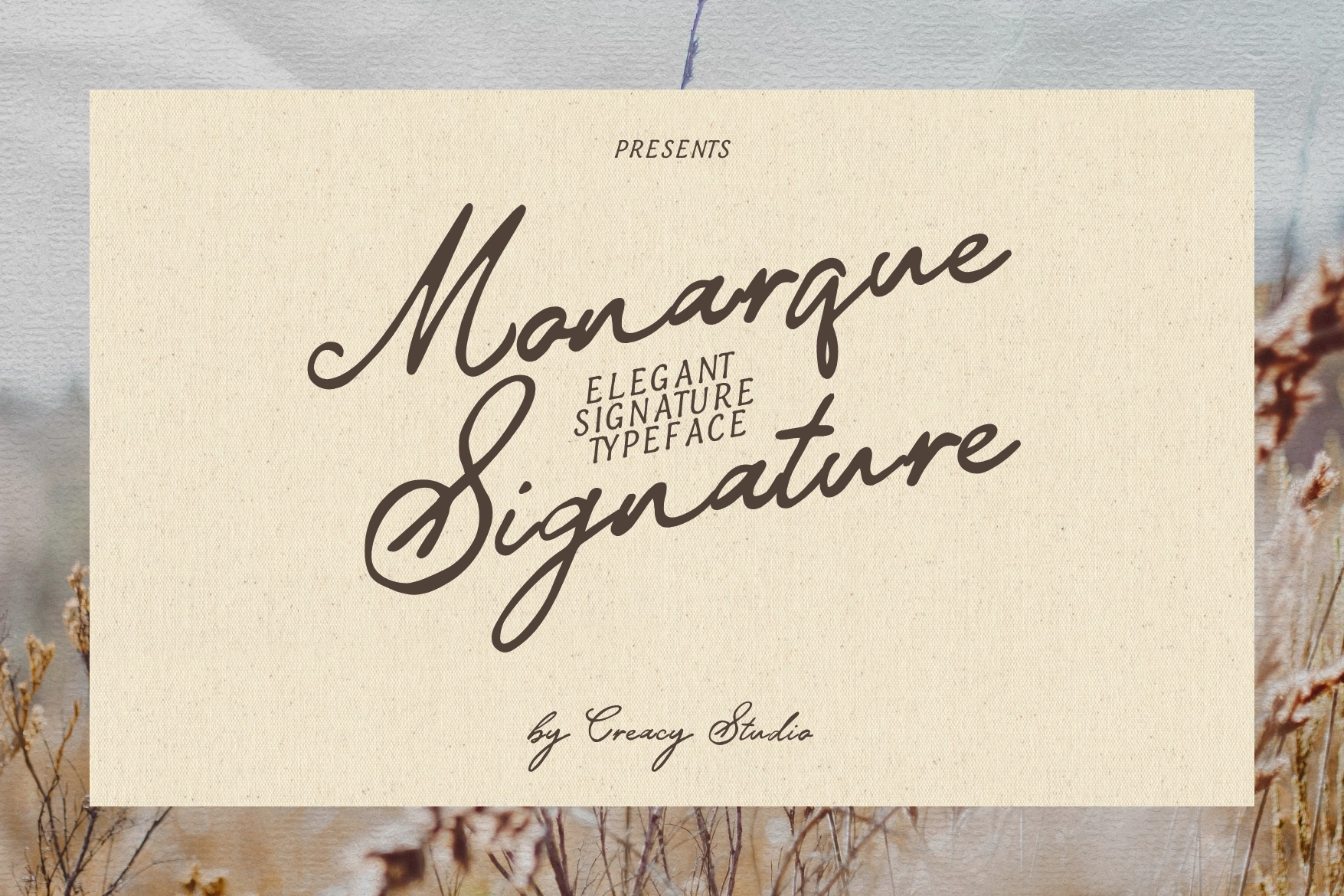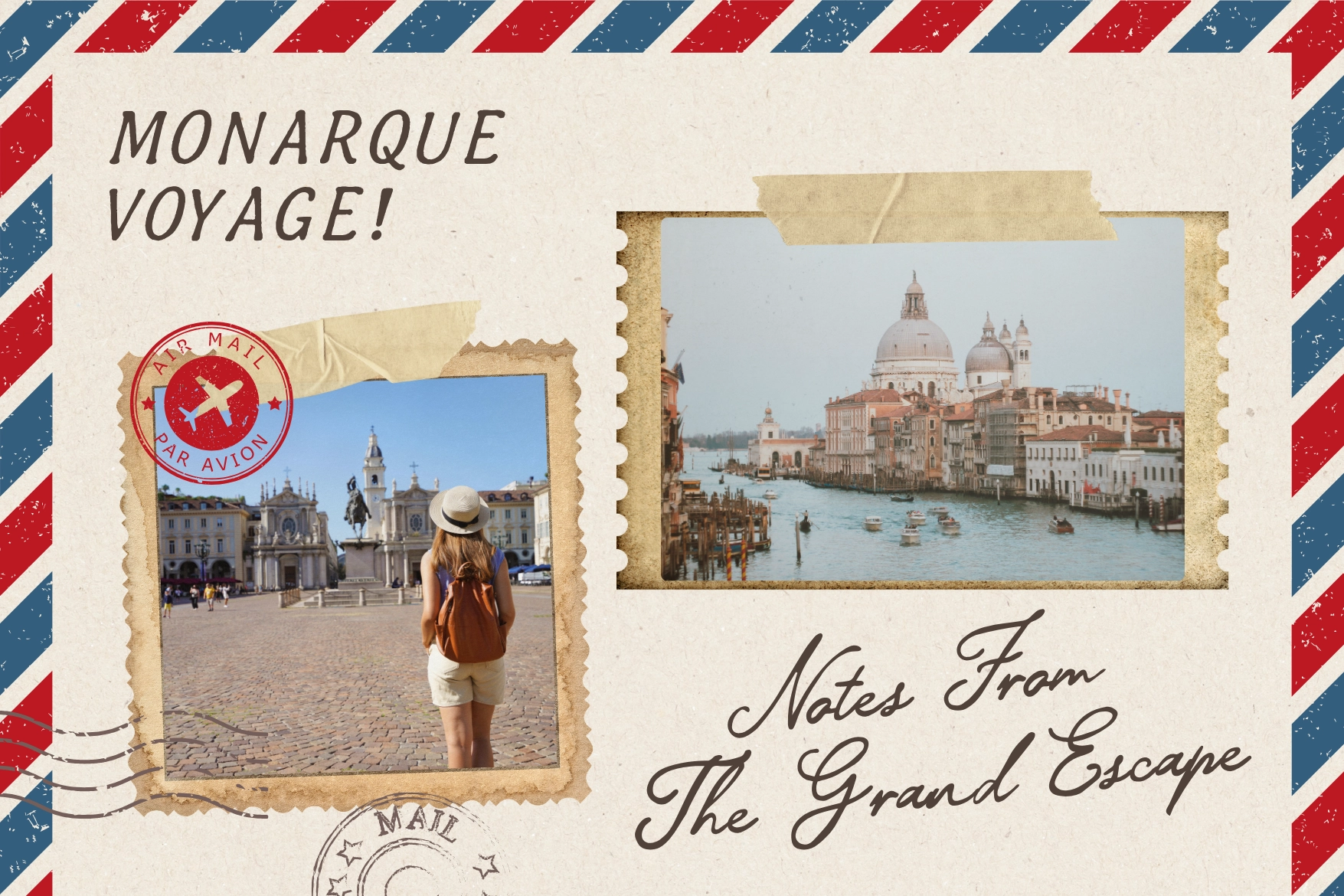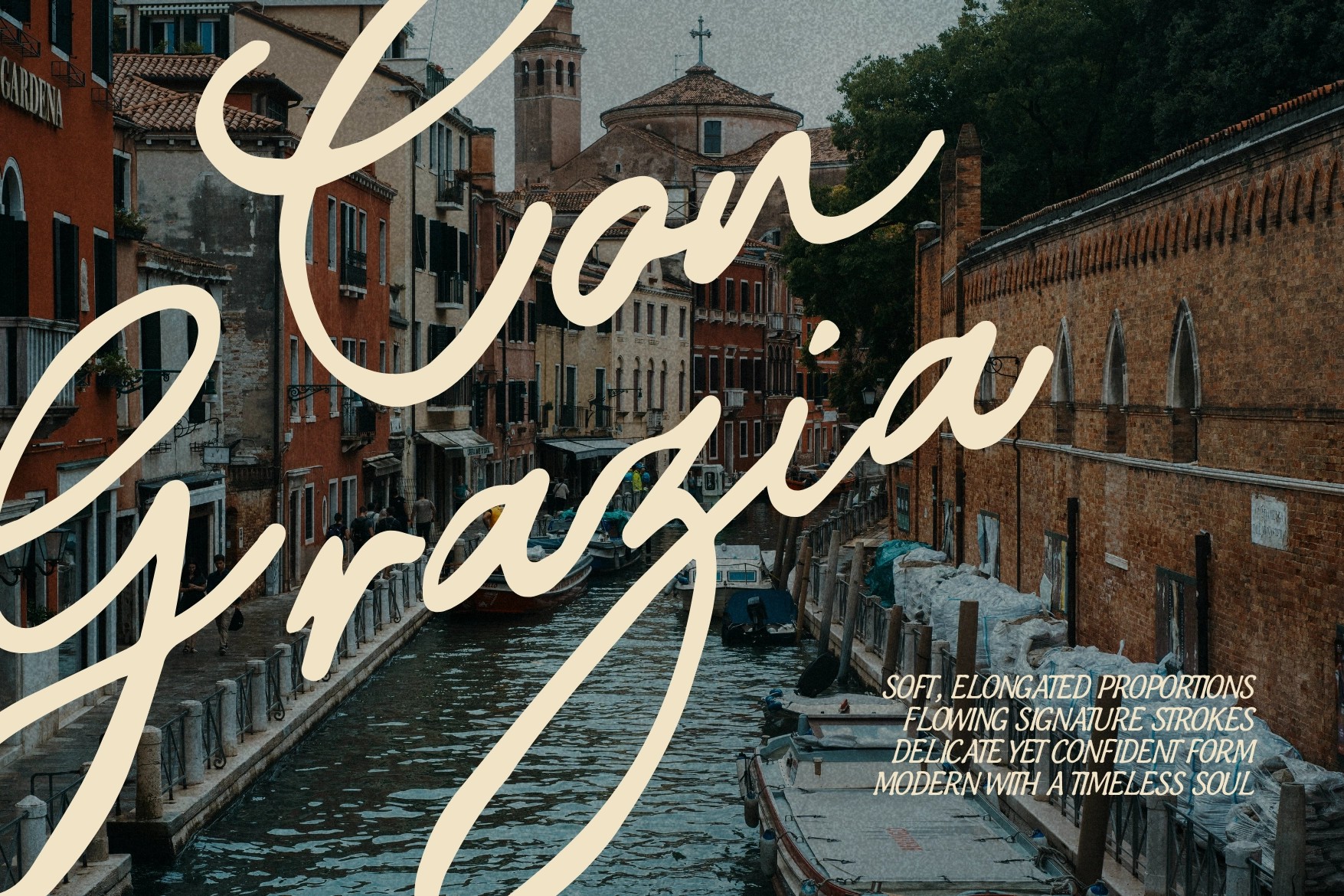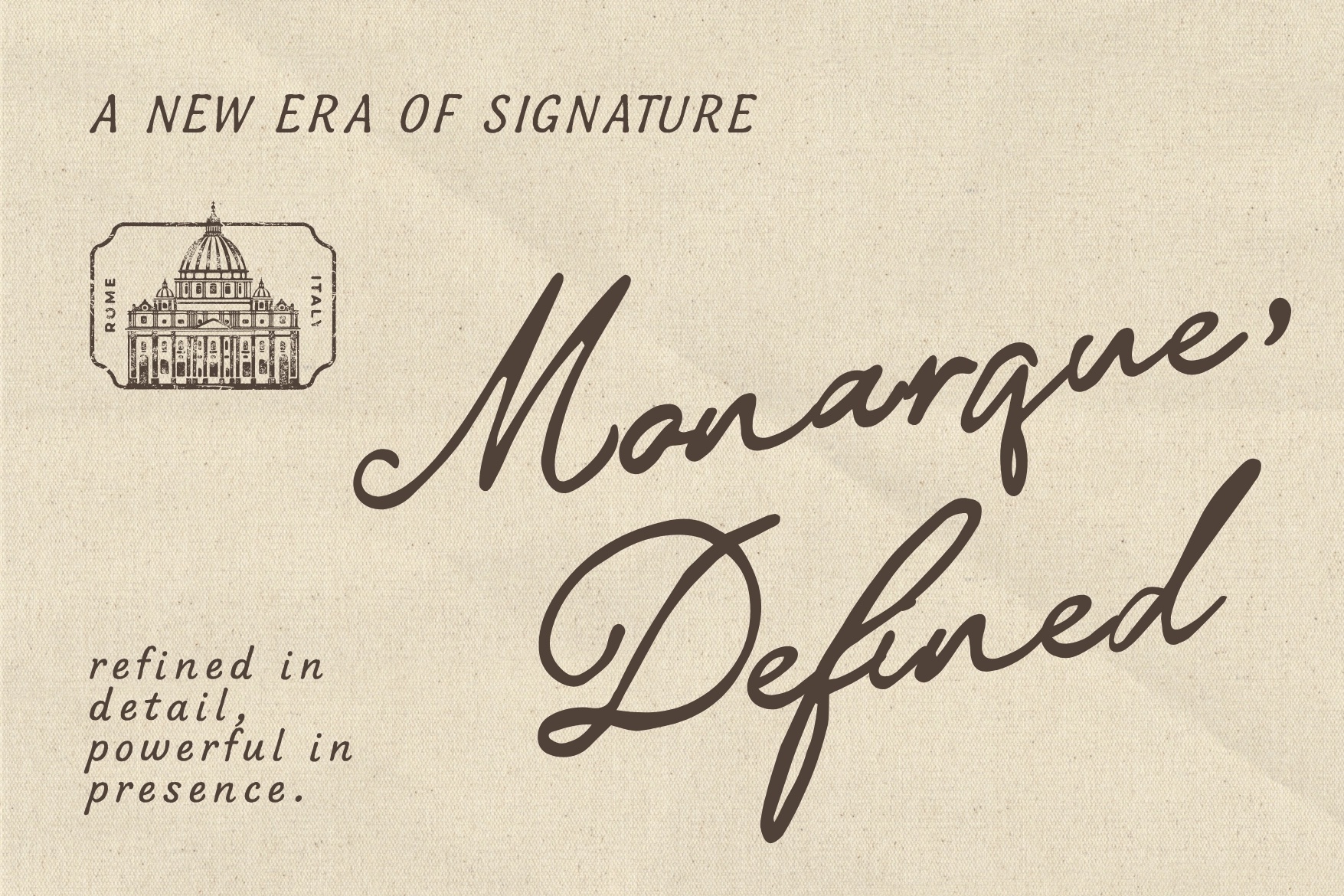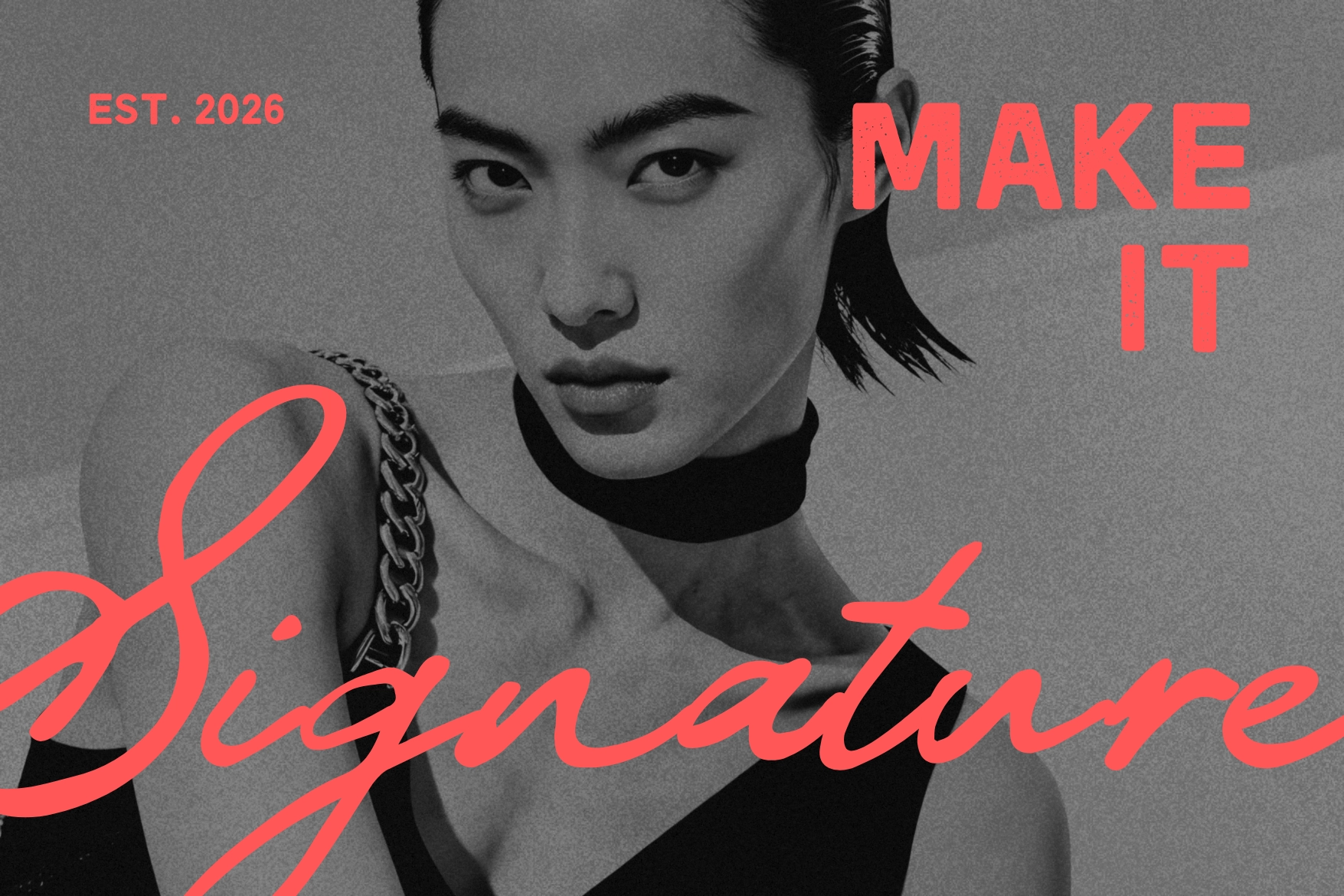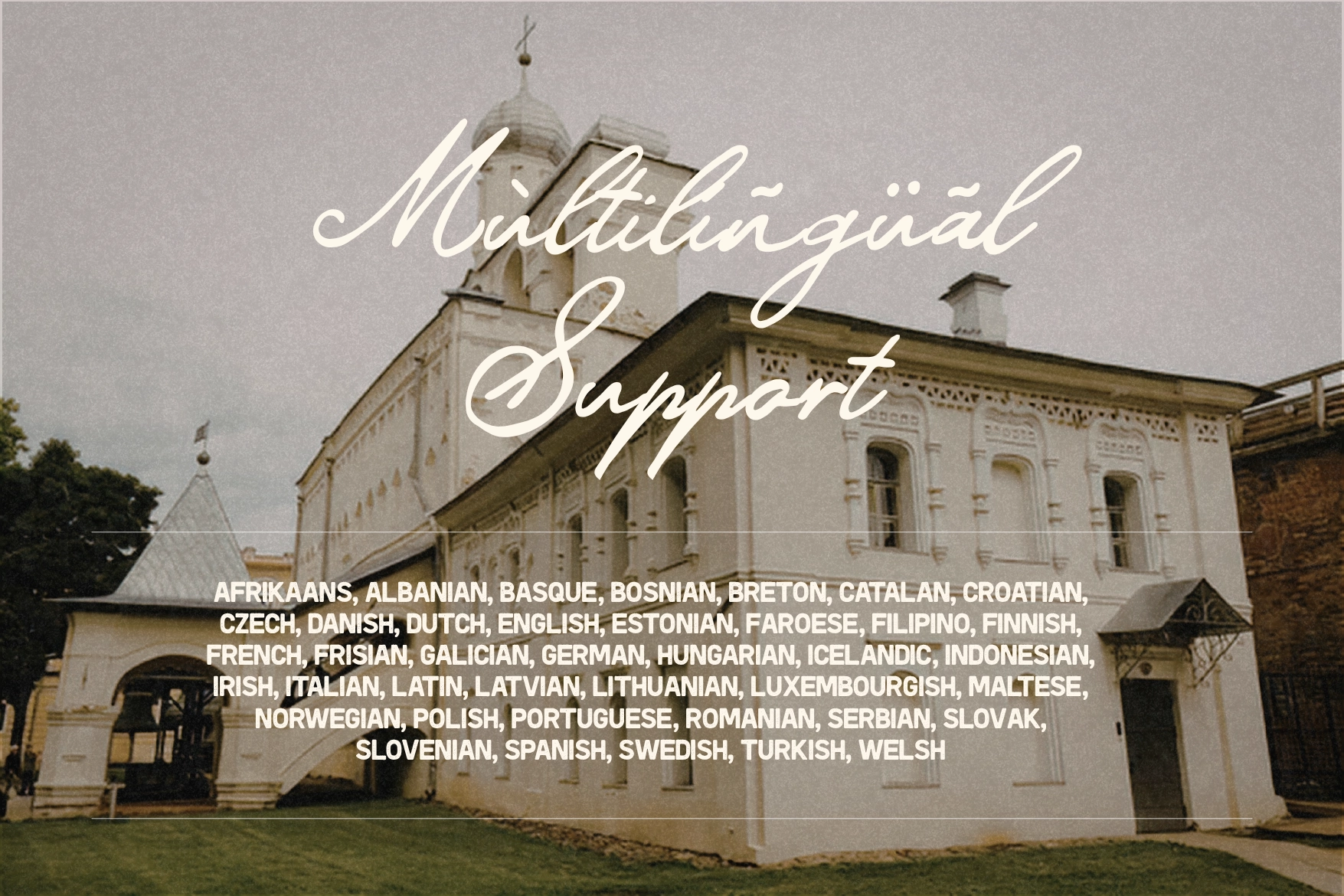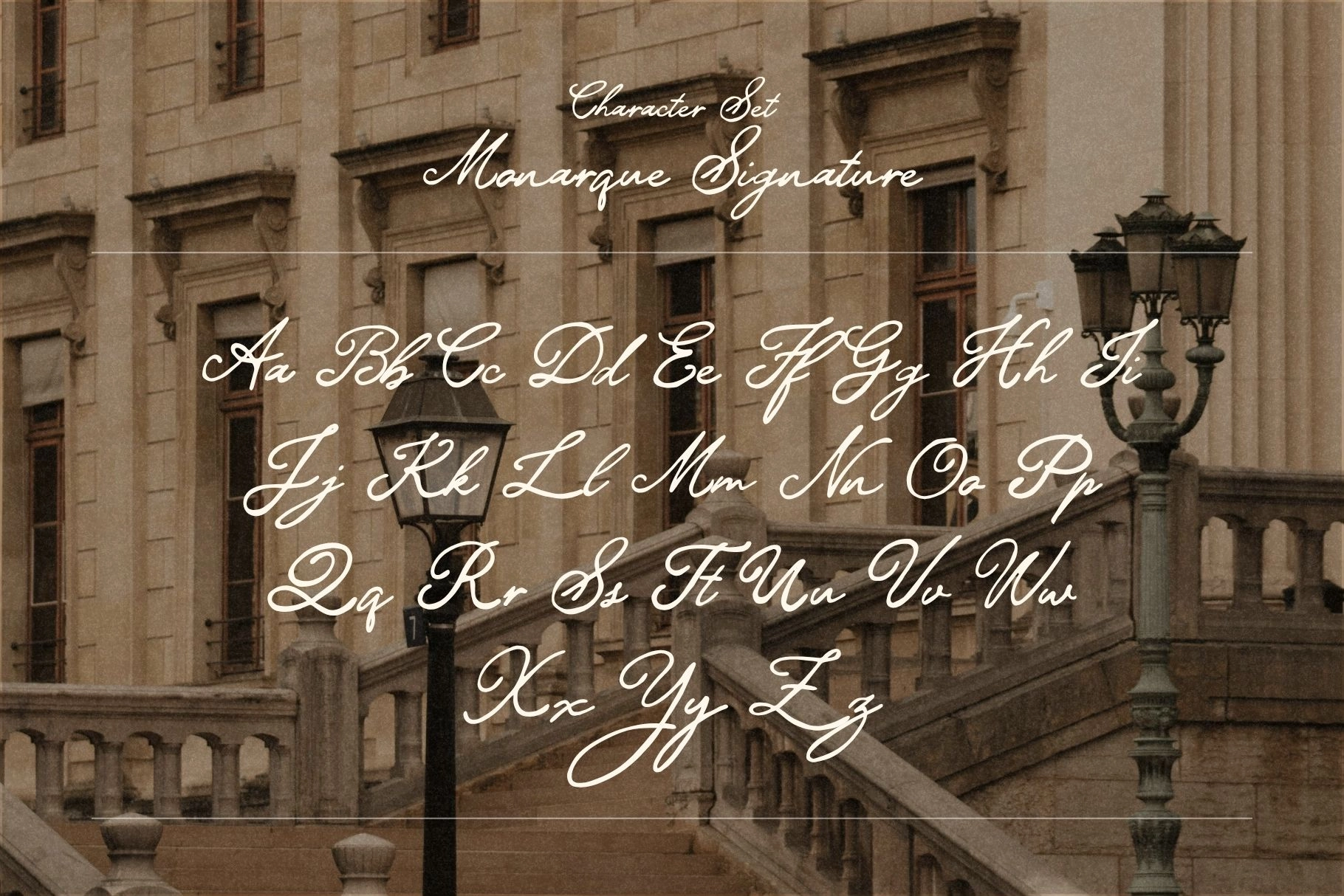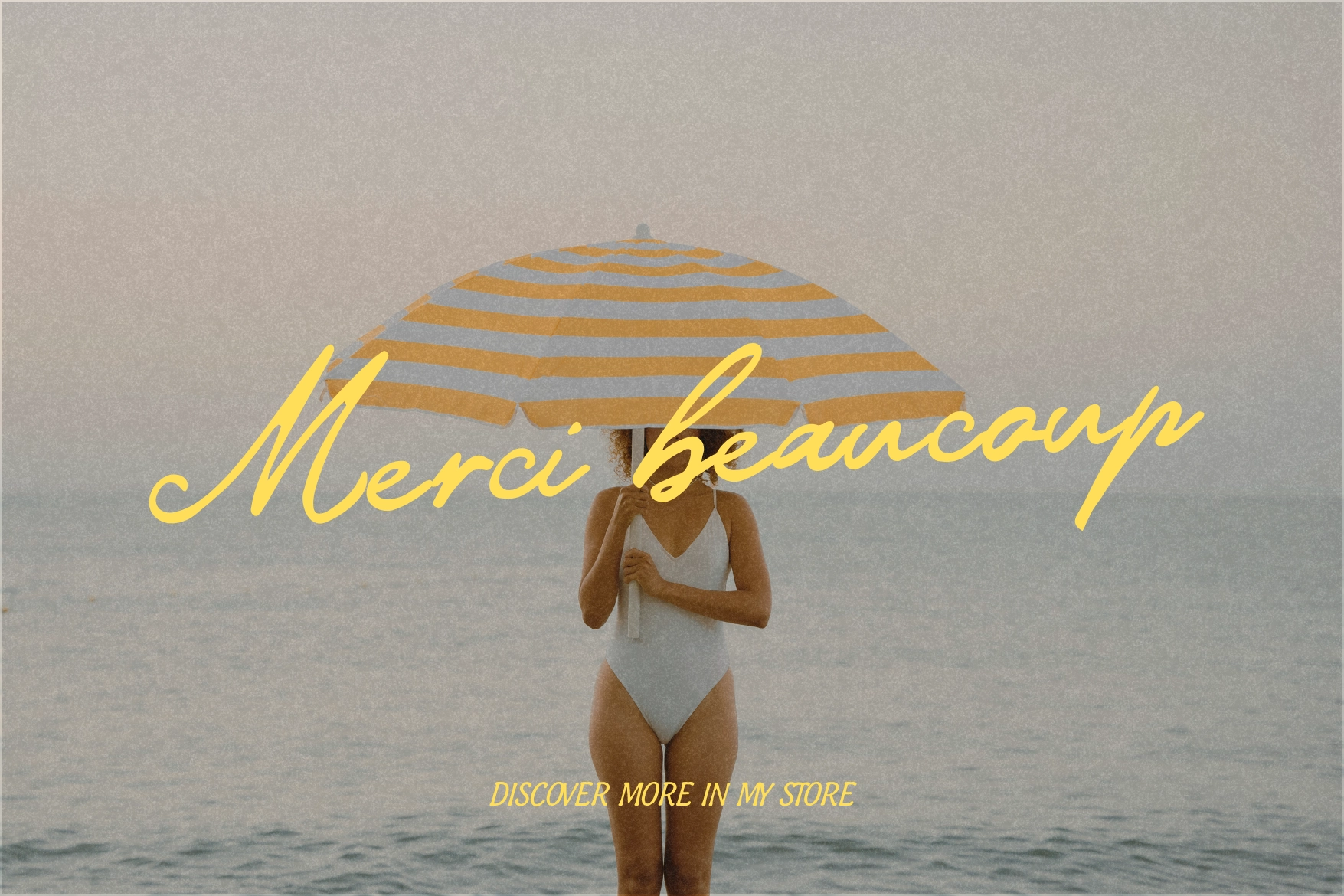
Monarque Signature - Elegant Script Font
Monarque Signature - Elegant Script Font is a refined handwritten typeface inspired by classic European calligraphy and modern luxury branding. With flowing strokes, elongated proportions, and soft curves, it creates a graceful, natural rhythm that feels both personal and polished. Its signature-style character brings elegance and confidence to any design, making it ideal for high-end visual identities.
Balancing delicate forms with a strong structure, Monarque Signature - Elegant Script Font works beautifully across branding, logos, wedding stationery, packaging, editorial layouts, and social media. Its smooth connections and versatile style pair effortlessly with serif or minimalist sans-serif fonts, adding a sense of quiet sophistication to both modern and classic compositions.